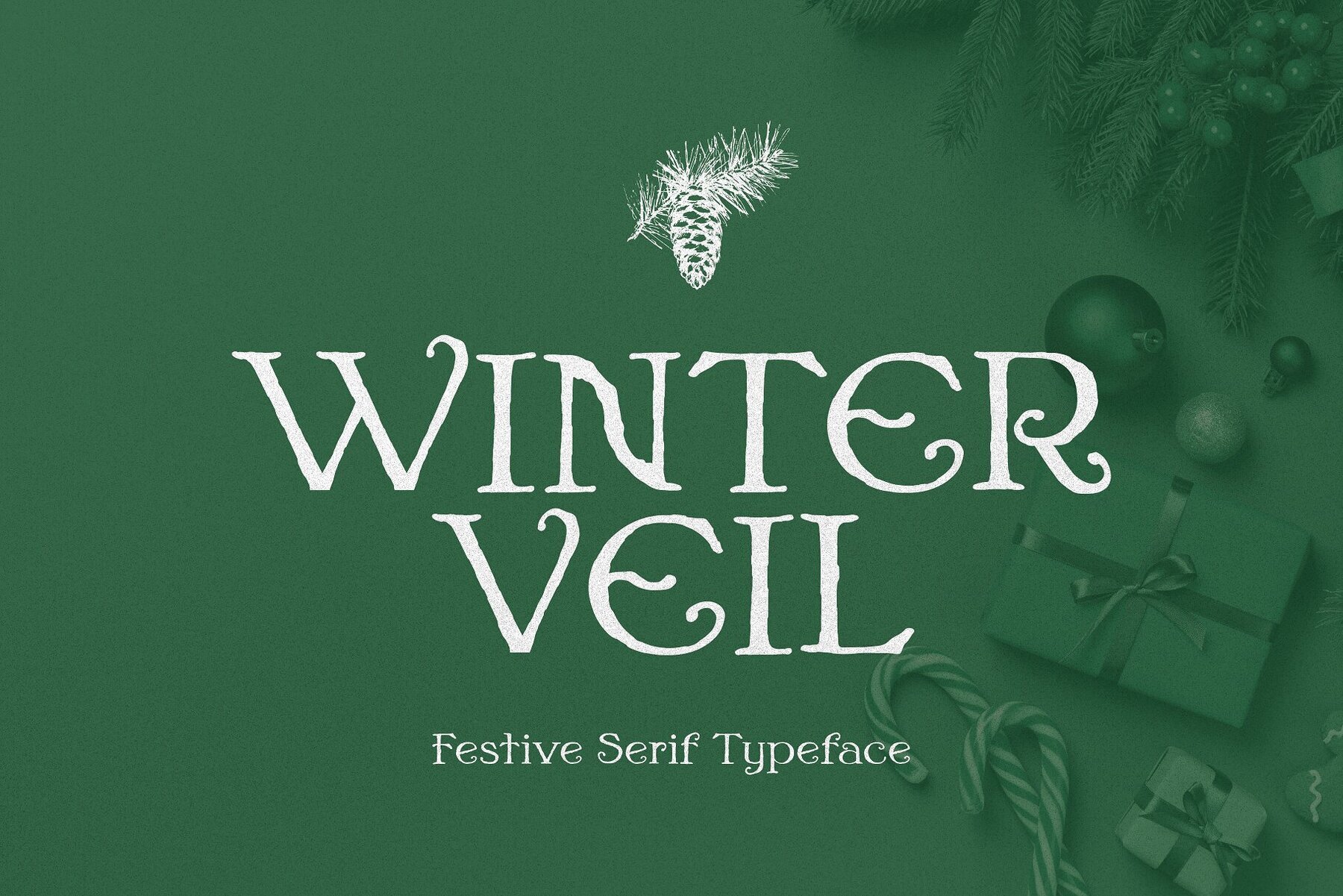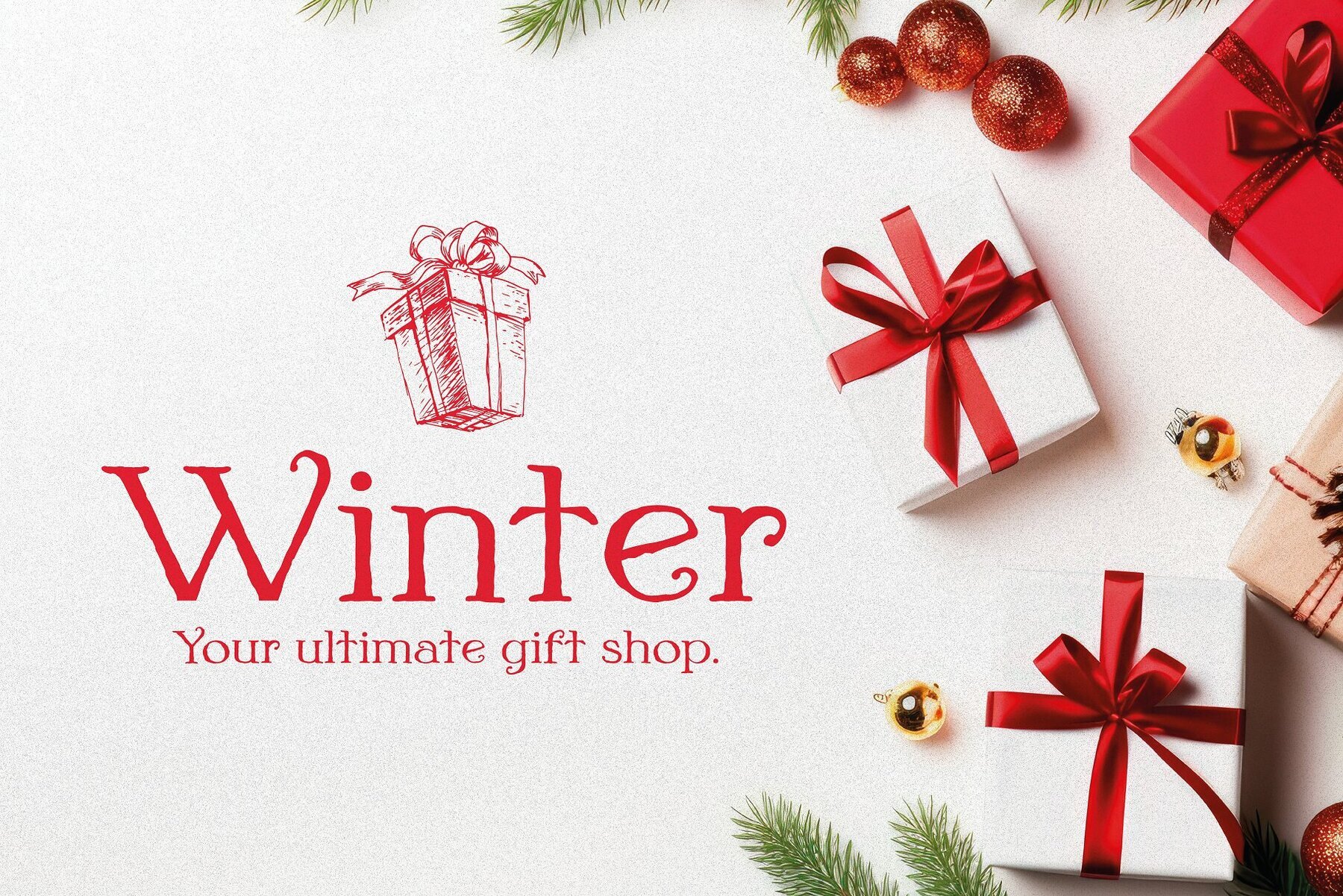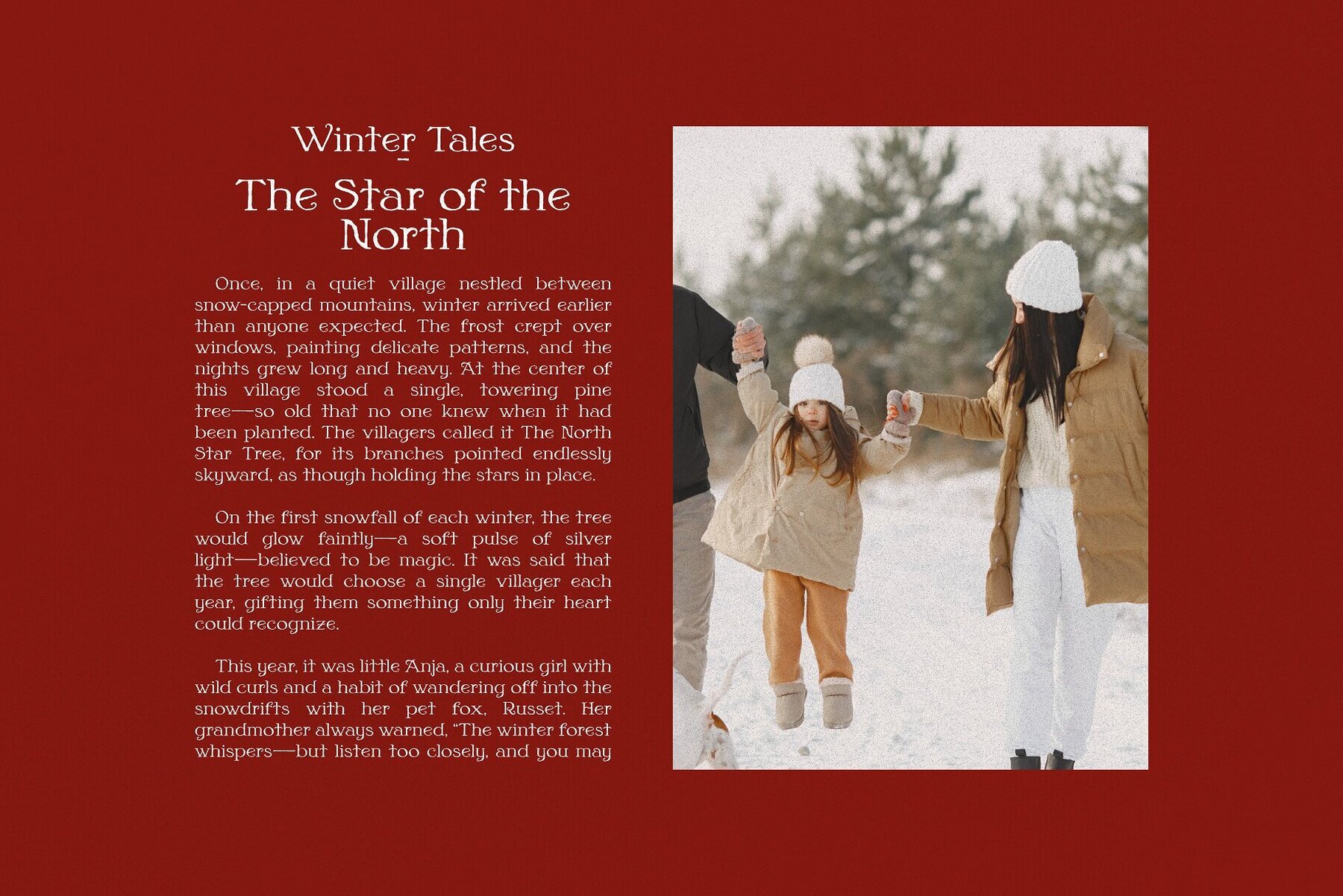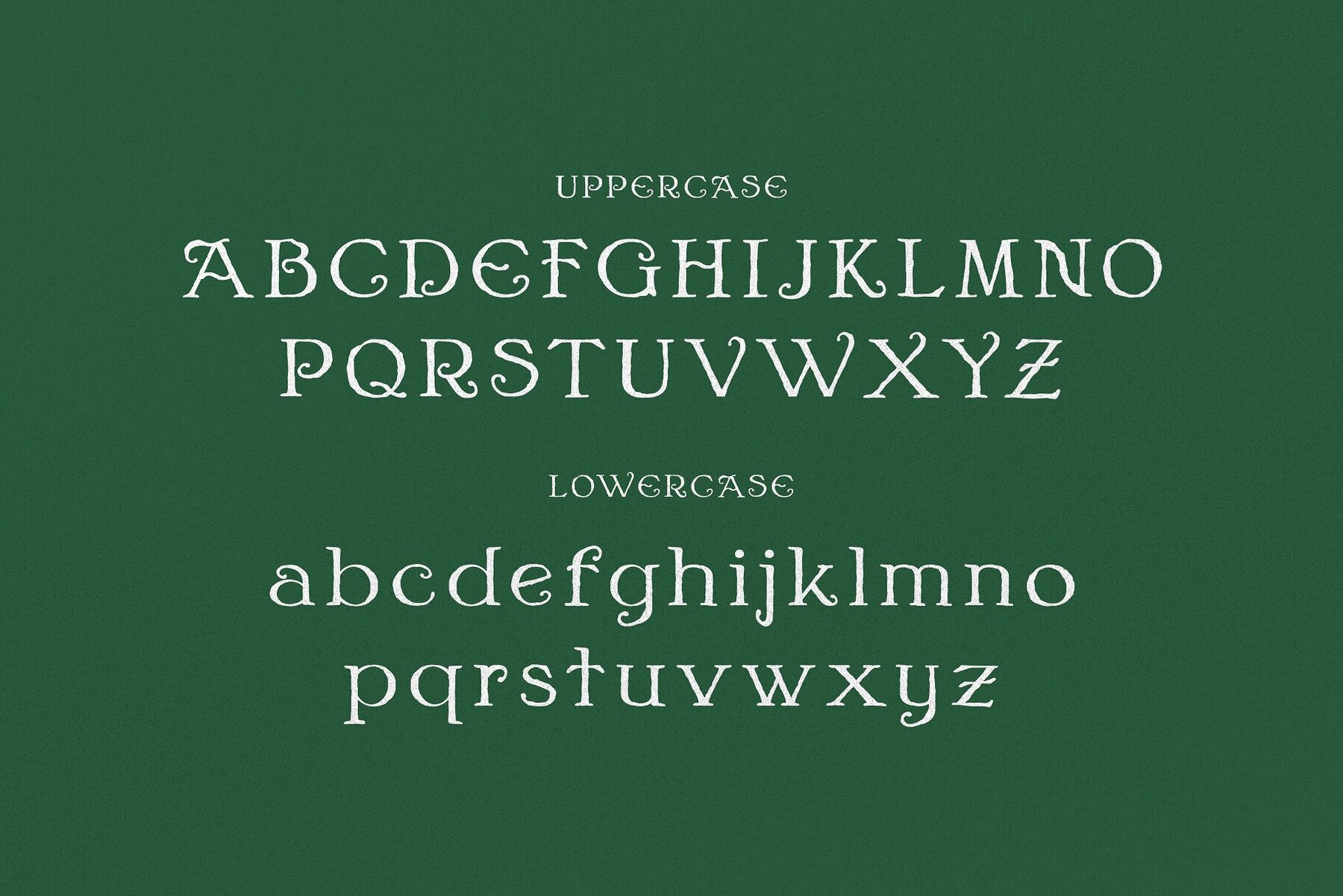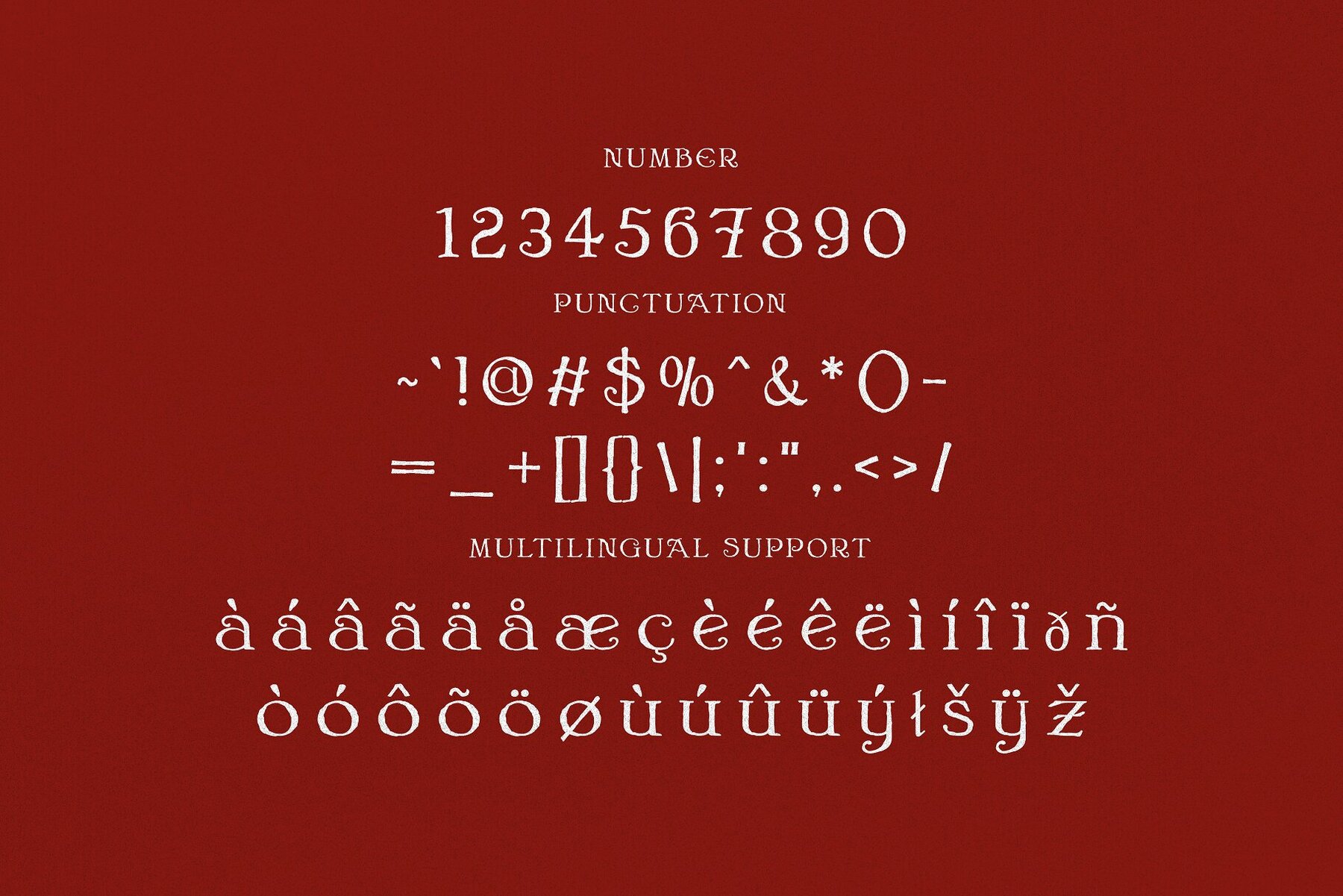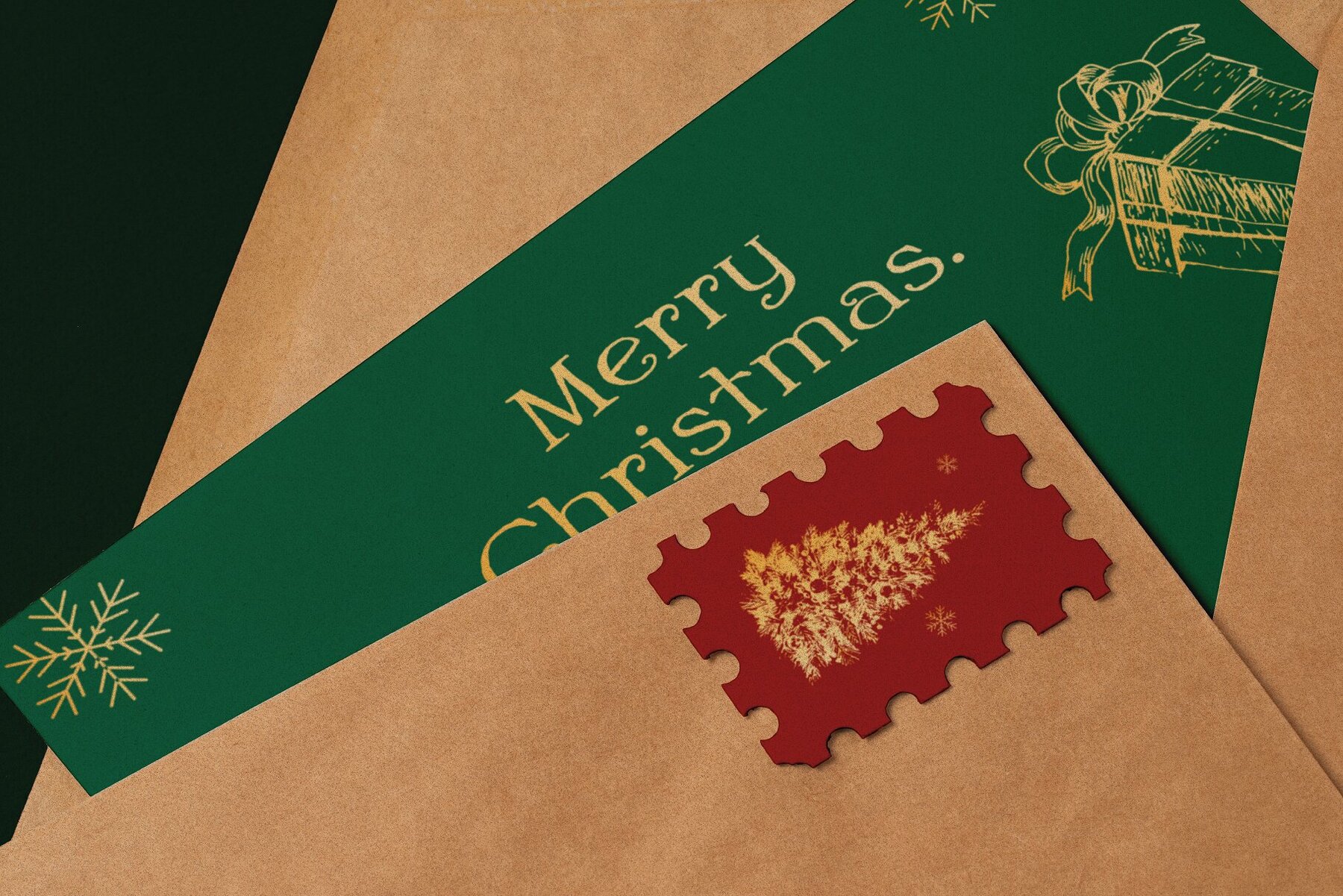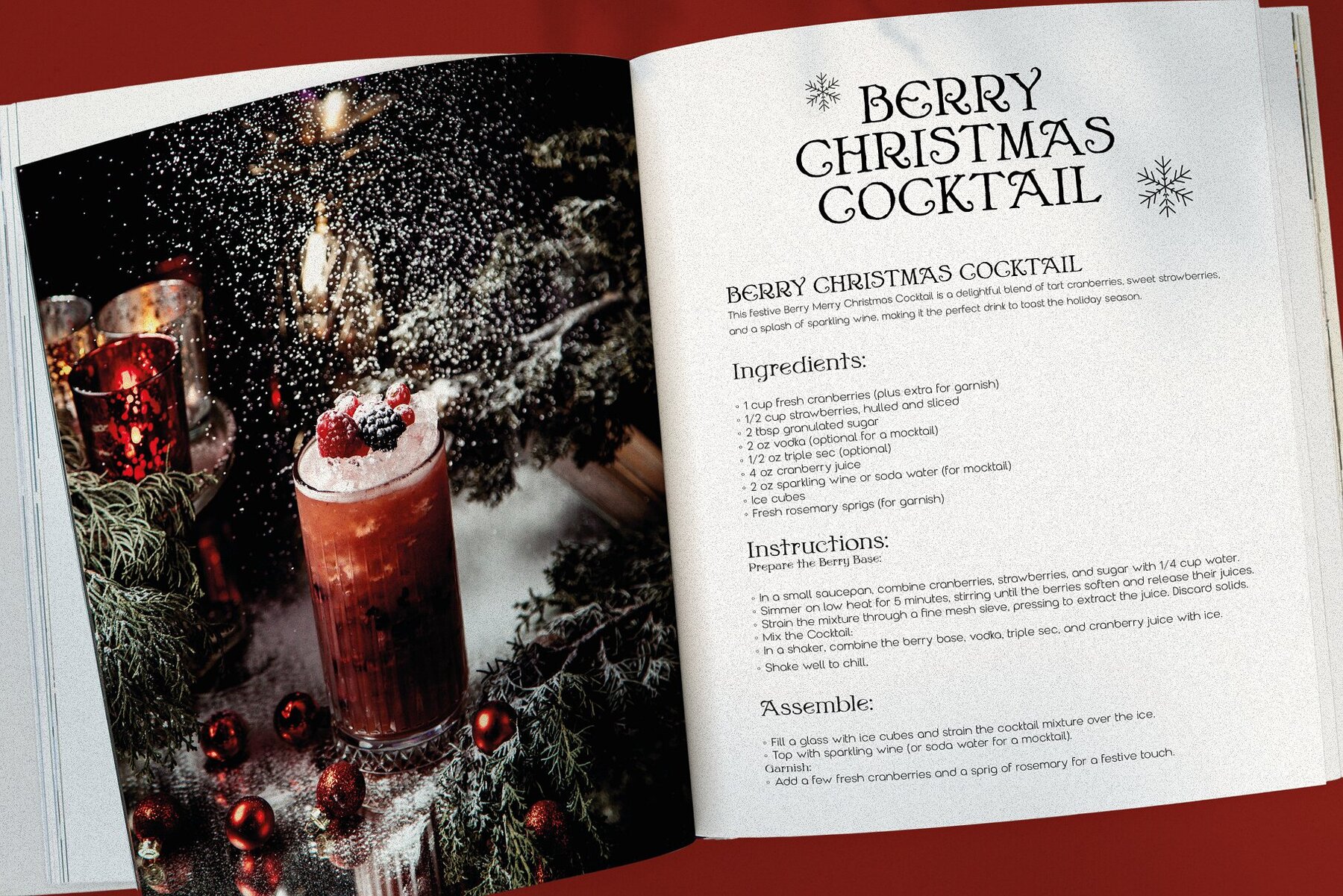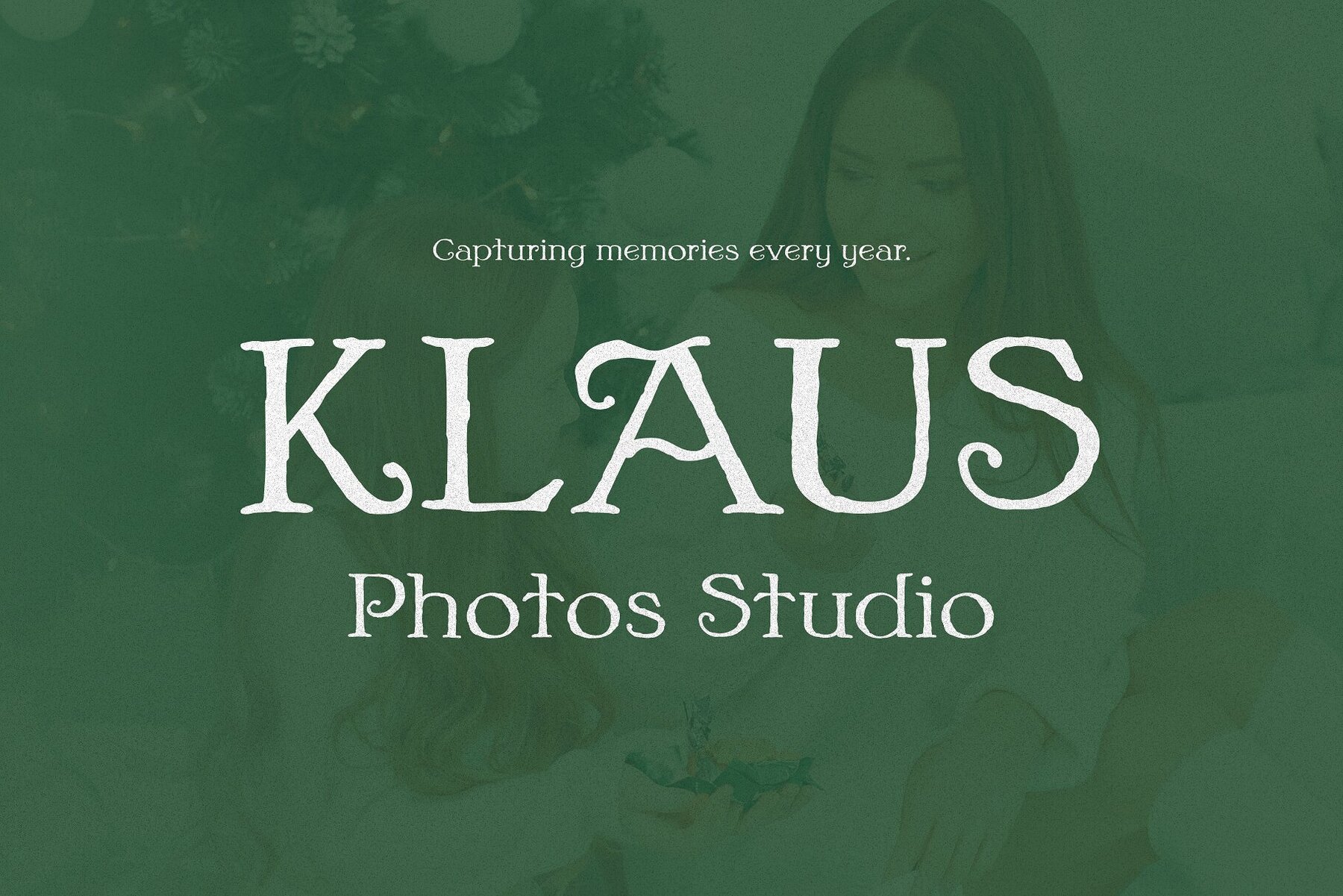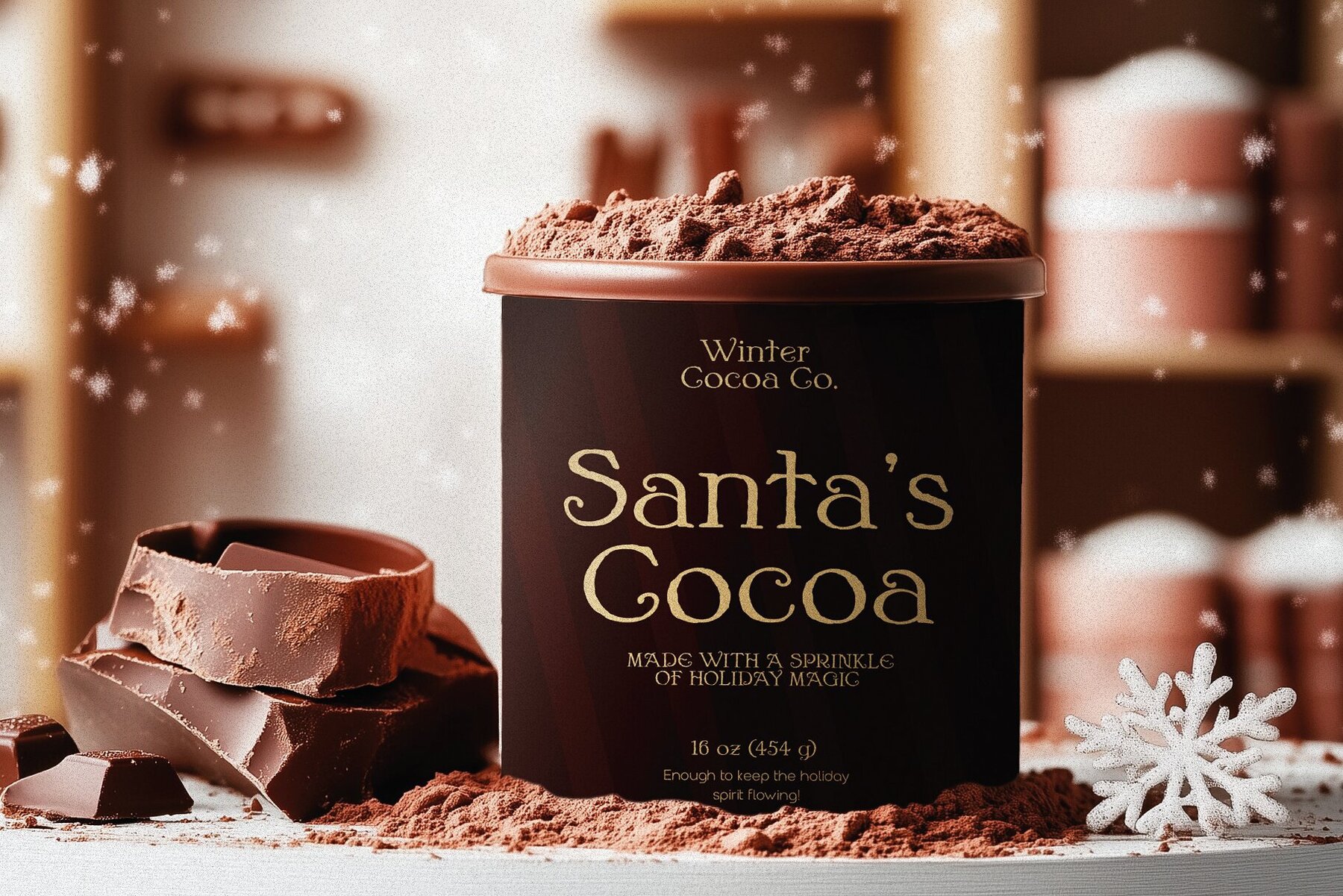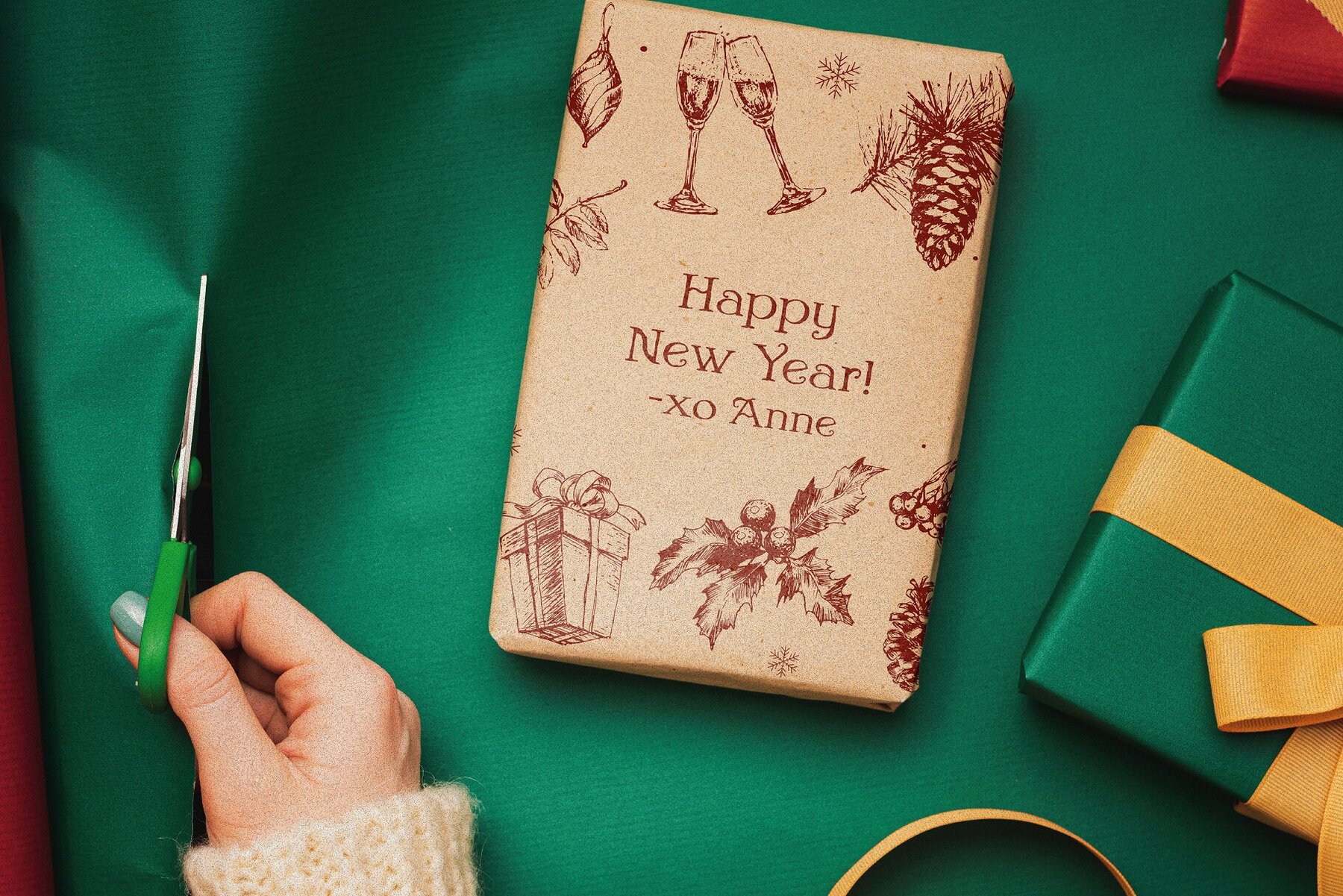
Winter Veil Font
Winter veil
Embrace the essence of the holiday season with Winter Veil, a Christmas-inspired typeface that exudes warmth and charm. This hand-drawn font, complete with rough edges, delivers an authentic, cozy spirit perfect for evoking the joyous atmosphere of the holidays. Its whimsical design and handcrafted feel ensure that your projects radiate festive cheer. Experience the enchantment of Winter Veil as it infuses your designs with the magic of the winter season. Ideal for creating captivating holiday greetings or cheerful festive decor, this typeface will light up your work with seasonal wonder. Bring the joy and warmth of the holidays into every piece you create with Winter Veil.Winter Veil Typeface